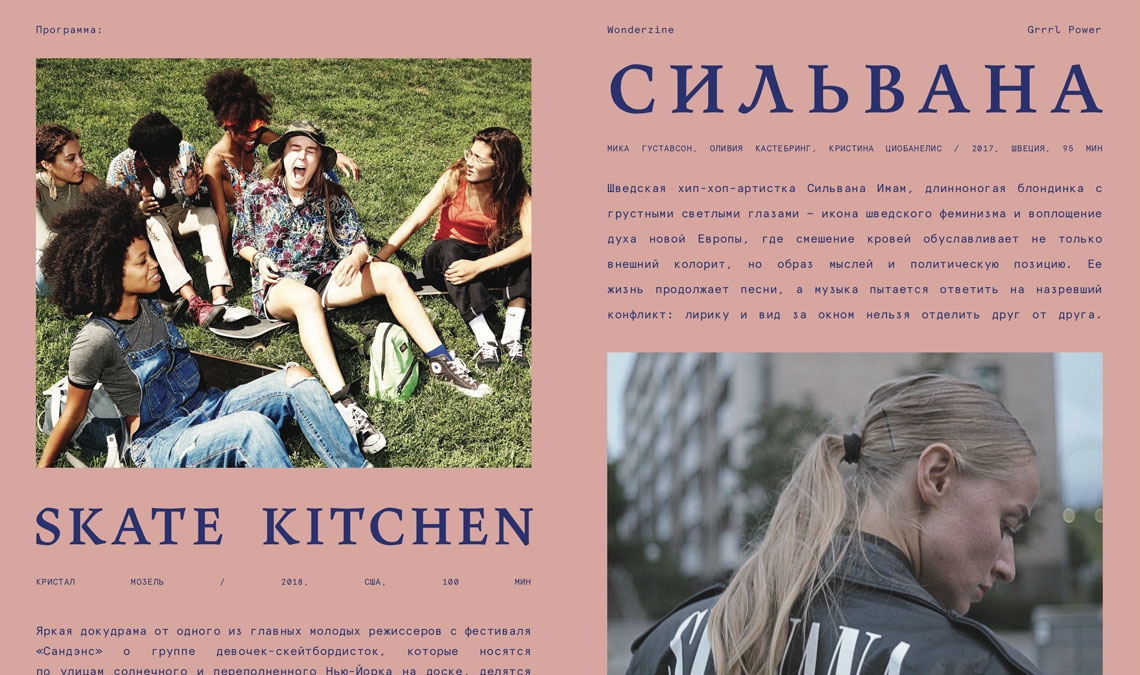
Beat Film Festival 2018
Maiola in use in the Beat Film Festival edition of 2018.
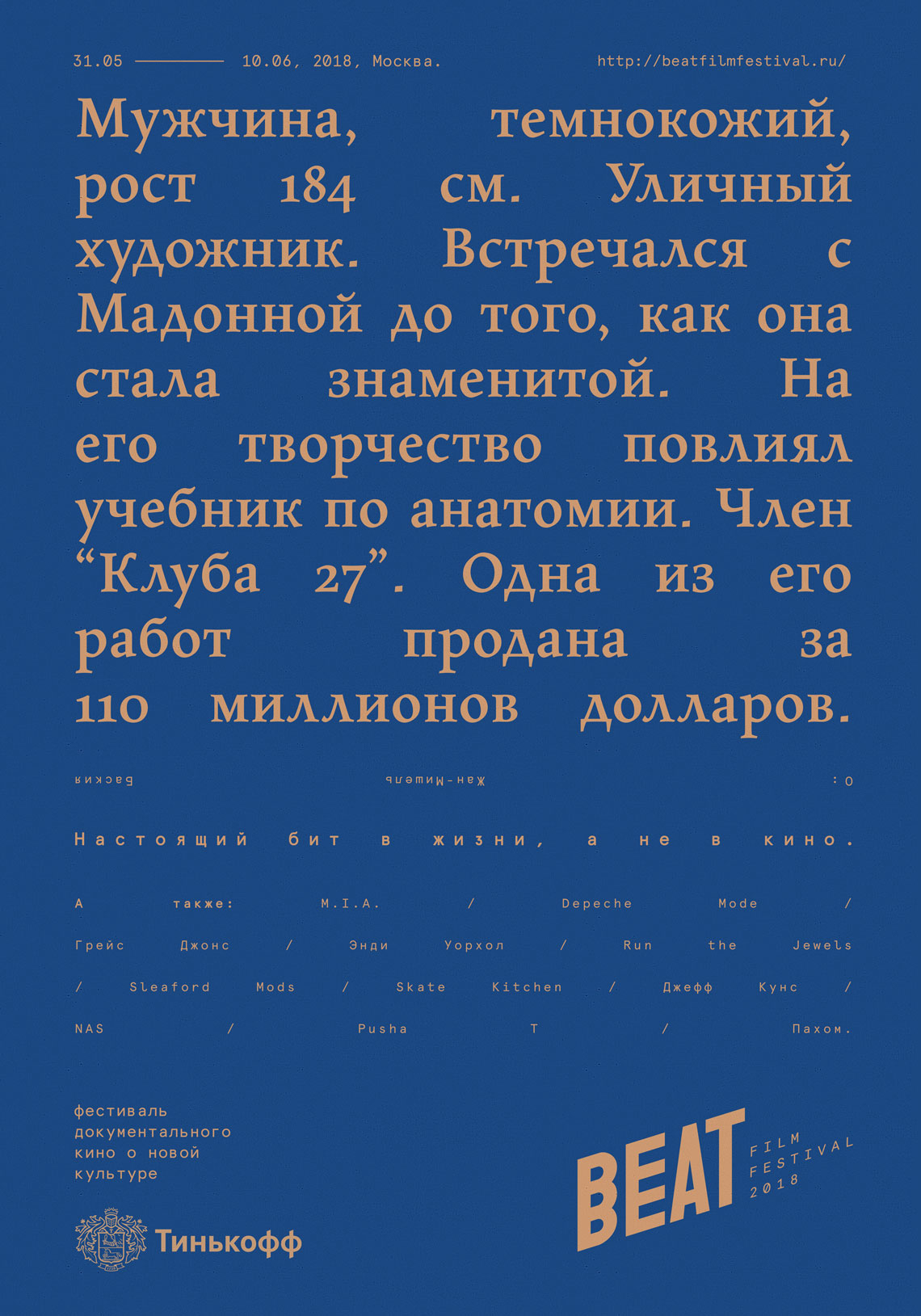
The Beat Film Festival, founded in 2010, is one of the largest film festivals in Russia focused on high-profile documentary films about current events from the world of music, contemporary art, media, street culture, sports, and new technologies. Its mission is to create a cultural agenda for the residents of Moscow and to bring the genre of the documentary film to larger audiences.
The identity and the posters for the ninth edition of Beat Film Festival were designed by Brazilian art director Ricardo d’Avila. He needed a typeface that would fit the project brief in terms of style and aesthetics, but, being a Russian festival, it was imperative that the typeface would also support Cyrillic. According to d’Avila, “This is where Maiola saved my life,” since it not only matched the brief, but also included Maiola Cyrillic.
The posters were selected as part of the permanent collection of the new Poster House in New York, the first museum dedicated to posters in America, and they were awarded bronze by the 2018 Russian Art Directors Club in the Print & Outdoor category.